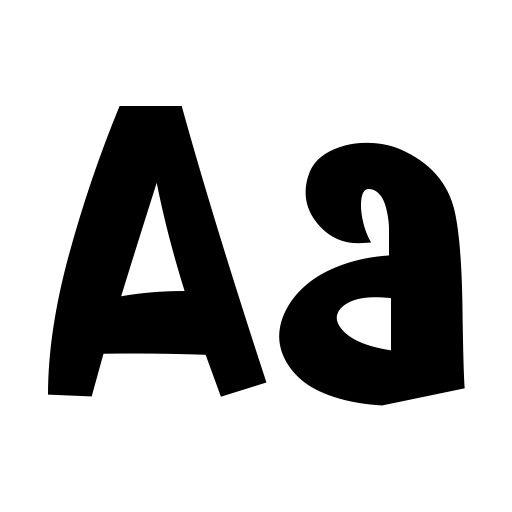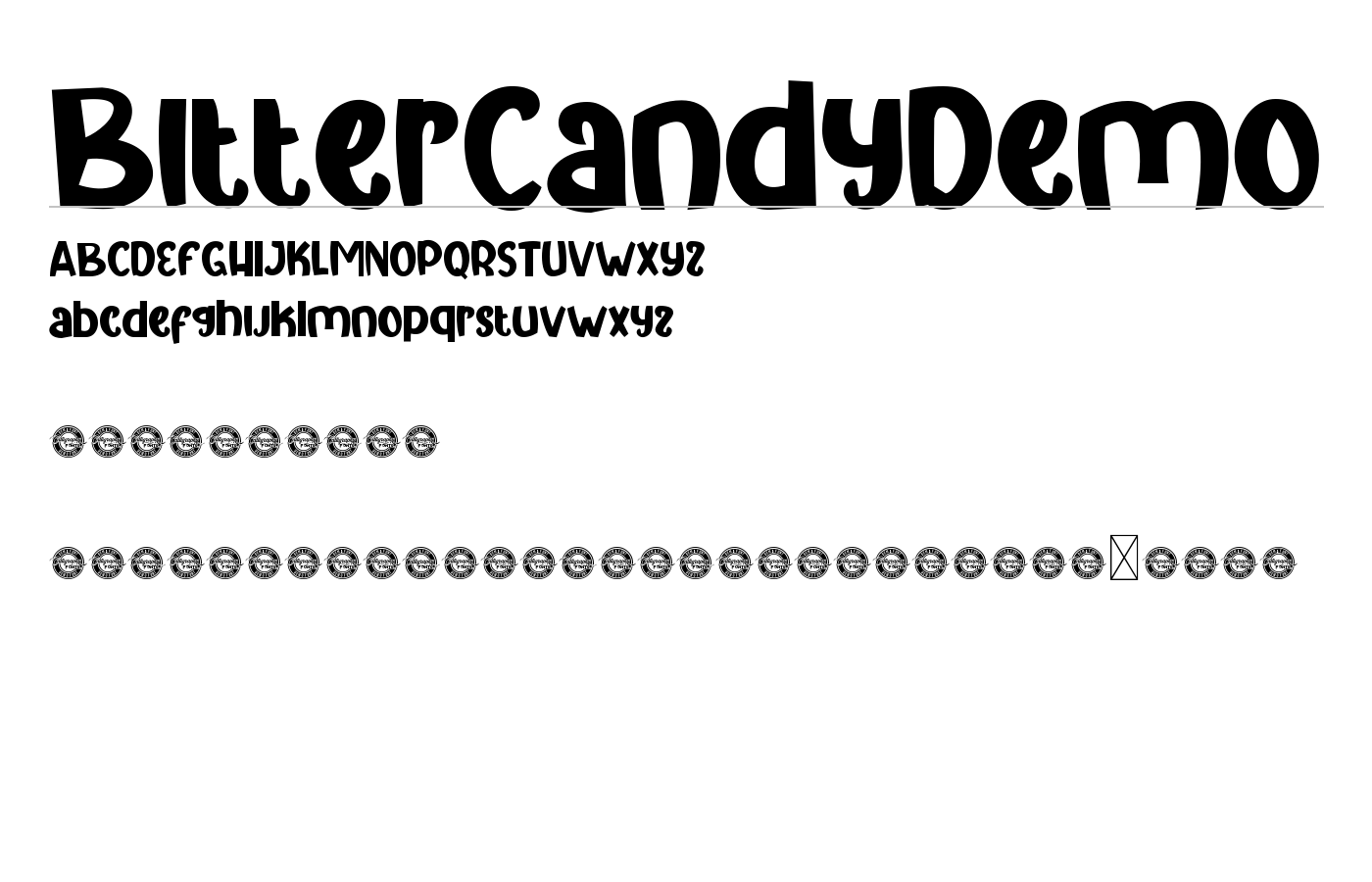
BitterCandyDemo is a playful and bold sans serif font with a hand-drawn, whimsical character. Its heavy weight and rounded, uneven shapes give it a fun, casual feel, making it perfect for informal designs, children’s projects, or creative branding that aims to stand out with a friendly and approachable vibe. This font works best in headlines, logos, and posters where a strong, eye-catching personality is needed.
BitterCandyDemo Font
About BitterCandyDemo Font